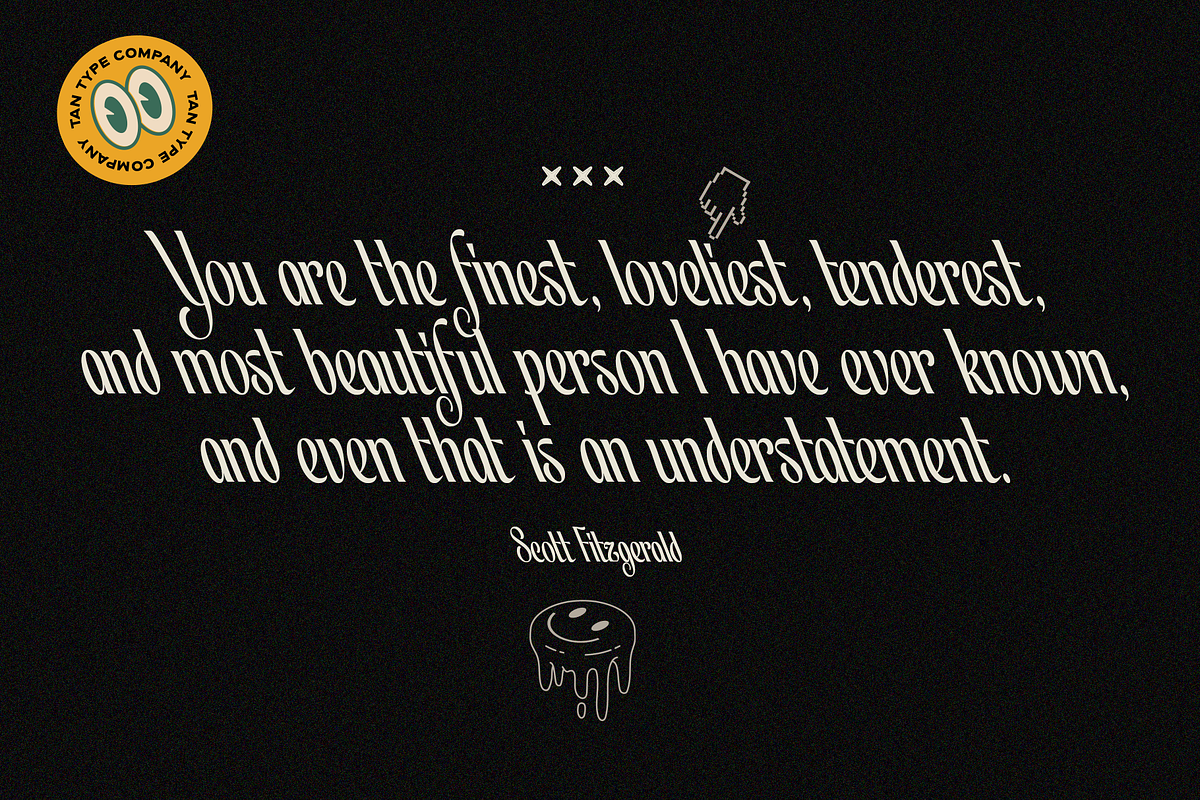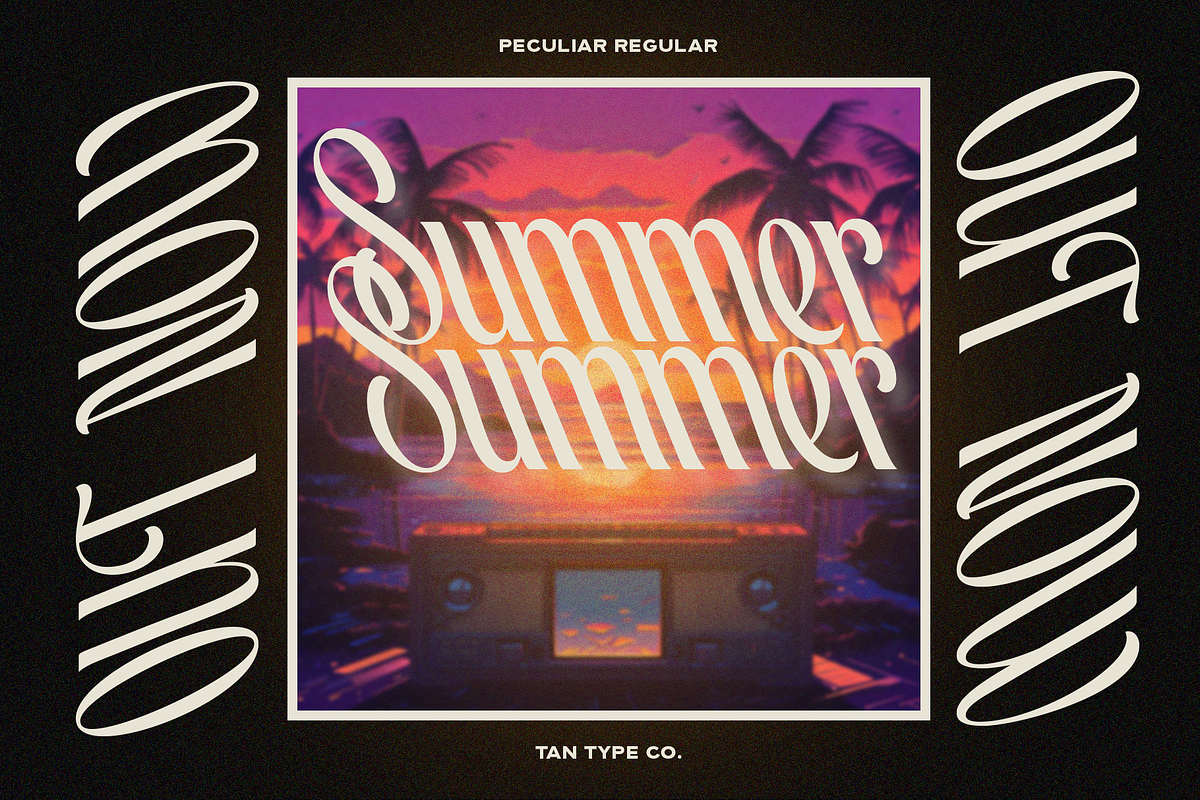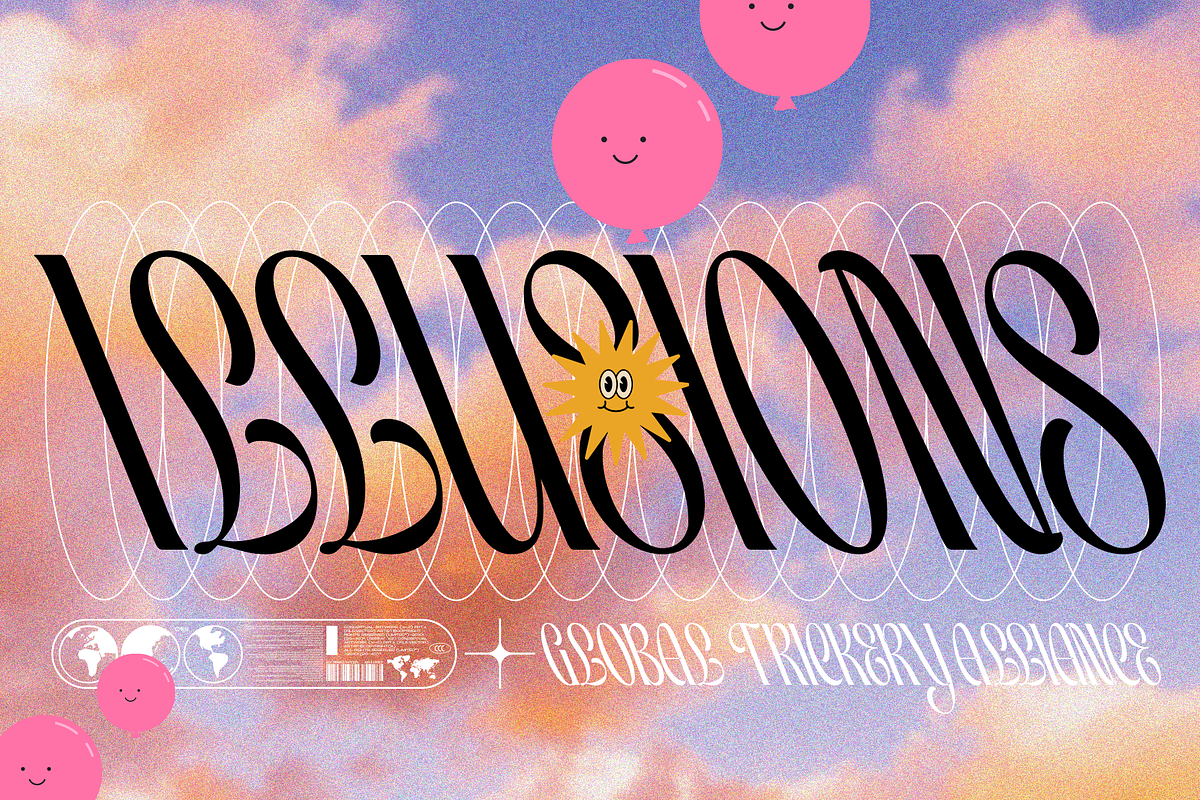
Tan Peculiar Font
Tan – Peculiar Font
Tan – Peculiar is a display typeface with a contemporary approach, fun and odd, adding a sense of wonder to your projects.